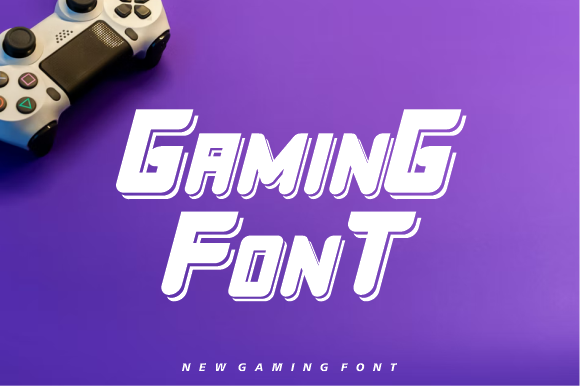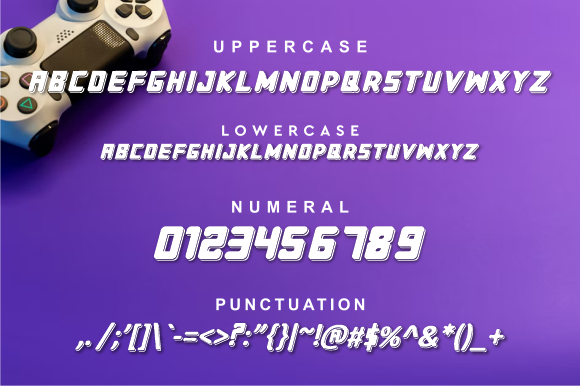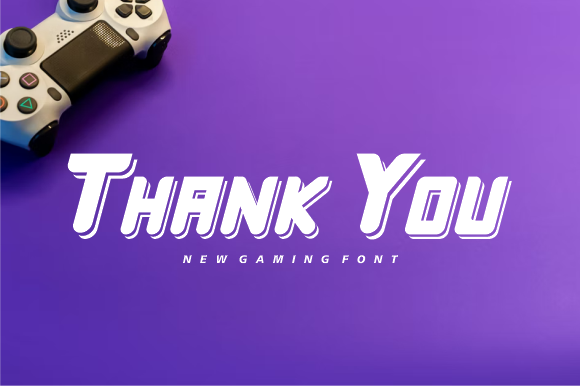
Introduction to Gamerin Font
Imagine the moment when your creative vision comes together in a stunning display of typography. The perfect font can elevate any design project, giving it an instant boost of style and personality. For designers seeking to make a lasting impression, the Gamerin Font is an invaluable asset. This bold and authentic display font is specifically designed to shine in a wide range of contexts, from logos to t-shirt printing, and even exports.
Key Features of Gamerin Font
- Unique design for creative projects: The Gamerin Font is specifically designed to cater to the needs of gamers, game developers, and other creative professionals.
- Transparent background: The font features a transparent background, making it ideal for use on any background or design.
- High-quality design resource: The Gamerin Font is a high-quality design resource that can elevate the visual appeal of any creative project.
- Unique characteristics: The Gamerin Font features a unique blend of futuristic and retro elements, making it a standout choice for designers and developers looking to add a touch of personality to their creative projects.
Honest Review: Gamerin Font
I recently came across the Gamerin Font, and I must say it’s a great addition to any designer’s arsenal. The font is perfect for a creative project that needs a touch of gaming-inspired flair.
What works well: ✨ The Gamerin Font has a high-quality design that’s crisp and clean. It’s great for titles, headings, or even body text in certain contexts. The font also comes with a transparent background option, which is a huge plus for designers who need flexibility.
- High quality: The font’s design is top-notch, making it a great choice for any creative project.
Limitations: ⚠️ While the font is great for certain projects, it may not be suitable for all designs. The gaming-inspired theme might not be the best fit for more formal or professional projects.
Overall impression: The Gamerin Font is a solid choice for designers looking for a free, high-quality font with a unique theme. It’s a great design resource to have in your toolkit, and I’d definitely recommend it for the right projects.
The Gamerin Font is ideal for creating engaging social media graphics, posters, and flyers. Its high-quality design and transparent background feature make it perfect for use in creative projects that require a unique and eye-catching look.
To get the most out of the Gamerin Font, experiment with different font sizes, colors, and styles to create a unique look. You can also pair the Gamerin Font with other high-quality design resources to create a cohesive and professional design.